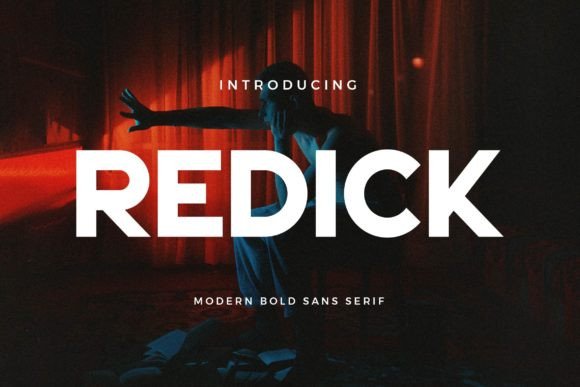
Welcome to the world of Redick, a captivating sans serif font family that's set to transform your designs into masterpieces. Inspired by the sleek simplicity of renowned minimalist logos, Redick is the perfect companion for crafting stunning templates, brochures, videos, and advertisements.
With its clean lines and timeless appeal, Redick effortlessly elevates your branding endeavors, making your logos stand out and your invitations exude elegance. Unleash your creativity in layout design, wrapping your words in an aura of sophistication and grace.
Redick's versatility extends to the realms of beauty design, where its delicate curves and subtle strokes add a touch of allure to your creations. Dive into the depths of elegant crafting, letting Redick guide your artistic vision as you bring your imaginative ideas to life.
Embrace the multilingual support of Redick and let your designs transcend borders, speaking to a global audience. Its universality makes it the perfect choice for businesses looking to expand their reach and connect with customers worldwide.
Don't settle for ordinary fonts that blend into the background. Choose Redick, the extraordinary sans serif that will make your designs pop and leave an unforgettable mark. With its captivating charm and exceptional versatility, Redick is not just a font - it's an essential tool for any designer seeking to create truly captivating experiences.